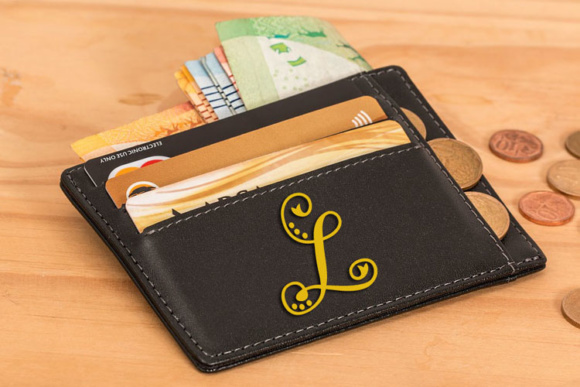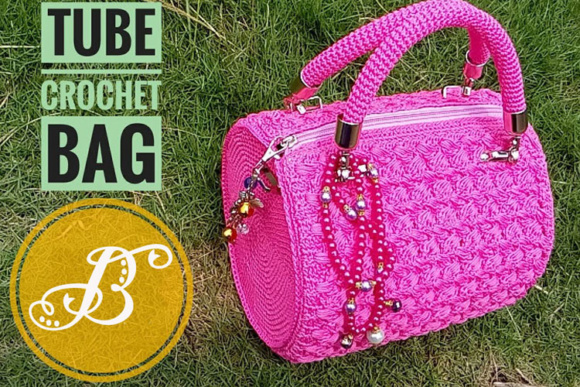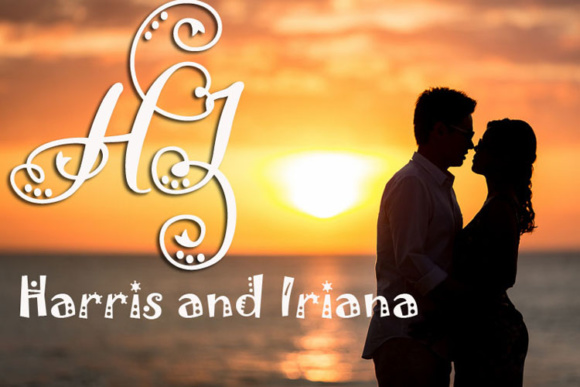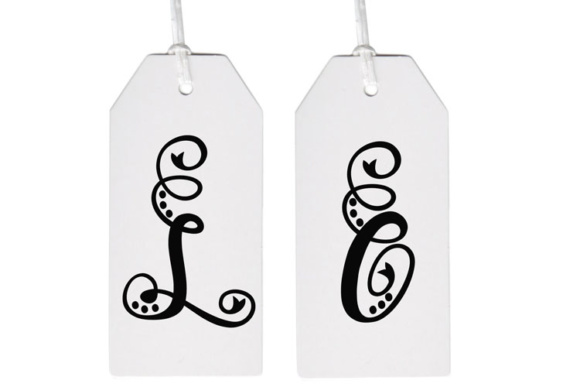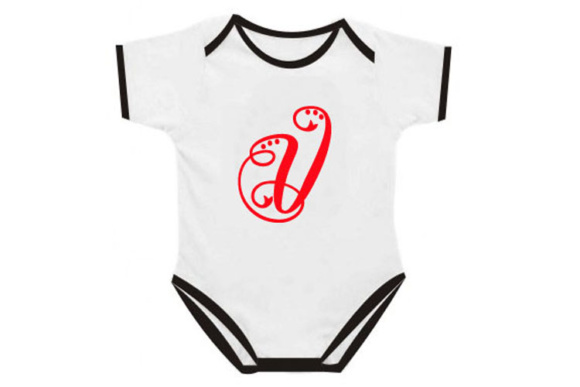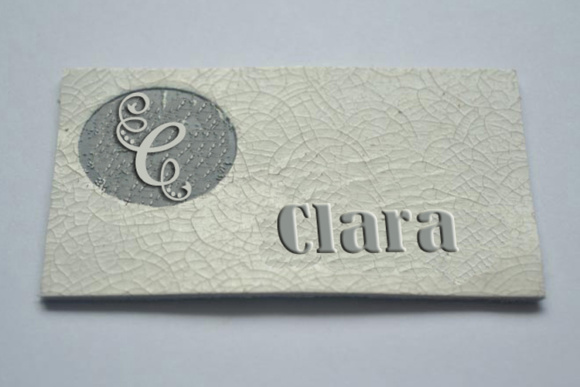
Introducing the Elegant Alpha Monogram Font: Elevate Your Designs with Sophistication
Are you a designer, crafter, or DIY enthusiast looking to add a touch of elegance to your projects? Look no further than the Alpha Monogram Font, a stunning set of monogram characters that exude class and sophistication. This gorgeous font is perfect for anyone seeking to create beautiful, high-end designs that stand out from the crowd.
What is the Alpha Monogram Font?
The Alpha Monogram Font is a carefully crafted set of monogram characters, designed to help you create stunning, professional-looking designs with ease. This font boasts a gorgeous, detailed look that adds a touch of luxury to any project, making it ideal for use in special projects, such as wedding invitations, branding materials, and more.
Key Features of the Alpha Monogram Font
- Unique and Detailed Design: The Alpha Monogram Font features a distinctive, intricate design that sets it apart from other monogram fonts. Its detailed look adds depth and visual interest to any project.
- Classy and Sophisticated: This font is perfect for designers and crafters who want to add a touch of elegance to their work. The Alpha Monogram Font works to add some classiness to your designs, making them perfect for high-end projects.
- Versatile: The Alpha Monogram Font is versatile and can be used in a variety of projects, including wedding invitations, branding materials, packaging, and more.
Benefits of Using the Alpha Monogram Font
- Save Time: With the Alpha Monogram Font, you can create professional-looking designs in no time. The font’s detailed design and classy look save you time and effort, allowing you to focus on other aspects of your project.
- Stand Out from the Crowd: The Alpha Monogram Font is a unique and distinctive font that sets your designs apart from others. Its elegant look and feel make your designs stand out, grabbing the attention of your audience.
- Perfect for Special Projects: This font is ideal for special projects, such as wedding invitations, anniversaries, and other celebrations. Its classy and sophisticated look makes it perfect for creating memorable and lasting impressions.
Who Can Benefit from the Alpha Monogram Font?
The Alpha Monogram Font is perfect for a range of designers and crafters, including:
- Graphic Designers: Graphic designers can use this font to create stunning branding materials, logos, and other designs that require a touch of elegance.
- Crafters: Crafters can use this font to create beautiful, professional-looking designs for their DIY projects, such as wedding invitations, cards, and other paper crafts.
- Stationery Designers: Stationery designers can use this font to create gorgeous stationery sets, including notecards, journals, and other paper products.
The Alpha Monogram Font is an amazing set of monogram characters that can elevate your designs to the next level. Its gorgeous, detailed look and classy feel make it perfect for use in special projects, such as wedding invitations, branding materials, and more. With its ease of use, versatility, and range of benefits, this font is a must-have for designers and crafters looking to add a touch of sophistication to their work. Get this amazing font today and take your designs to new heights!